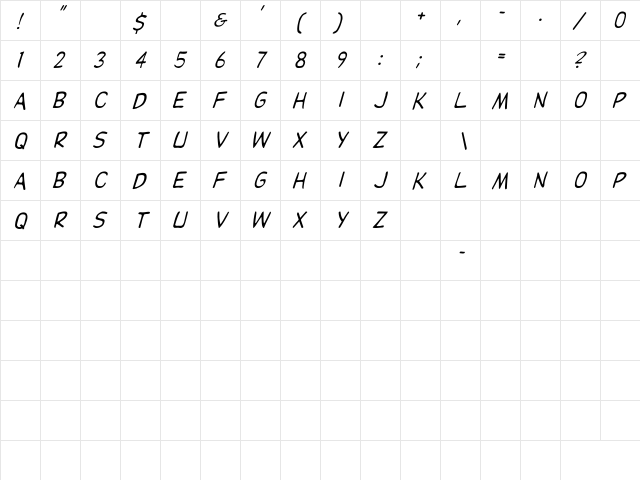
Dupuy Italic Italic
Design Context for Dupuy Italic Typeface
Dupuy Italic is a composed and adaptable typeface that performs quietly and consistently across a wide range of design contexts. The slanted form adds forward momentum and visual energy.
Pro Tip: Try Dupuy Italic for annotation and caption copy alongside an upright companion — the contrast in angle creates a dynamic but ordered typographic system.